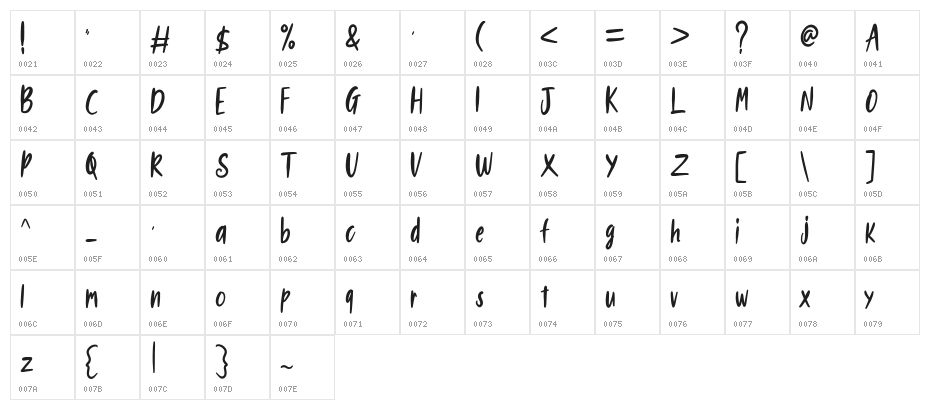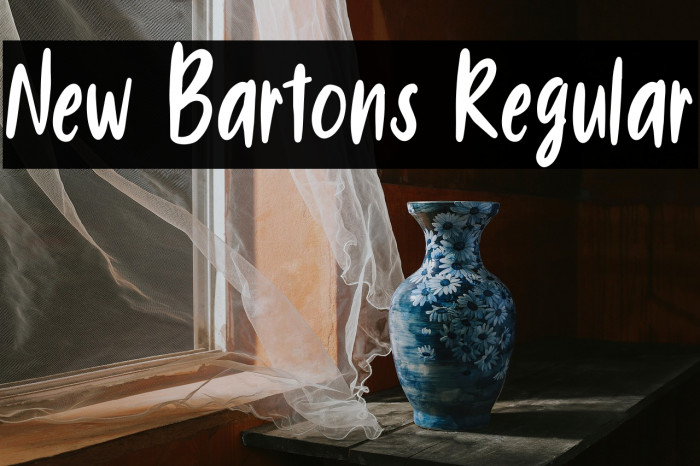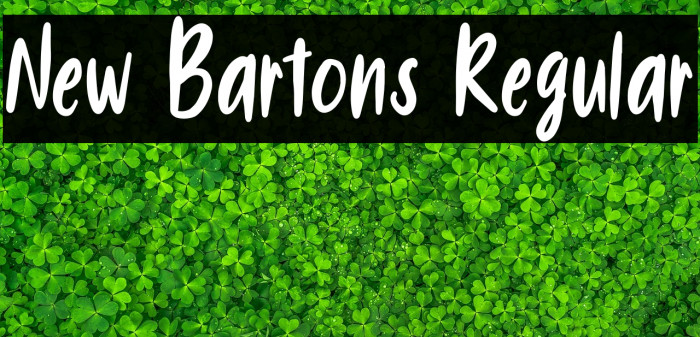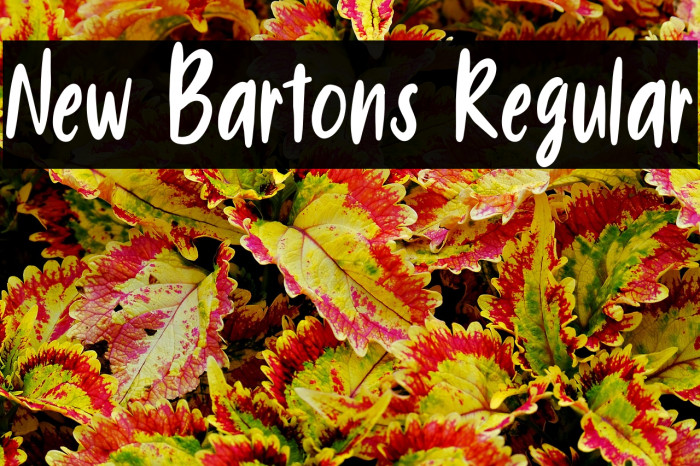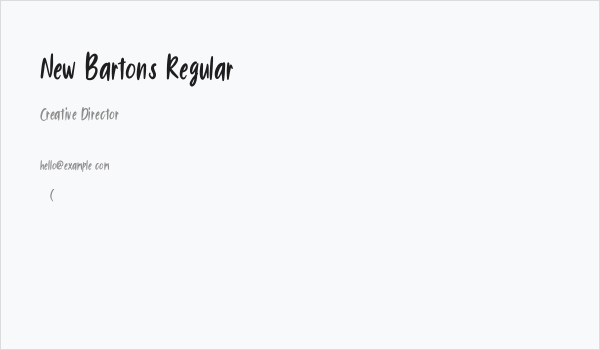
New Bartons Regular Font
New Bartons Regular Description
A bold, handwritten font with a playful and casual style, featuring irregular strokes and a lively appearance.
| Use Case | Headlines, Informal text, Branding |
| Proposed Projects | Greeting cards, posters, casual branding. |